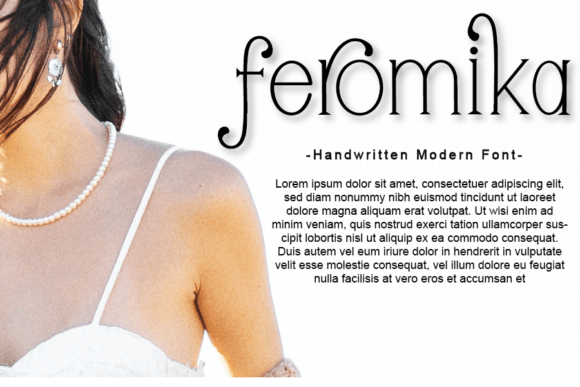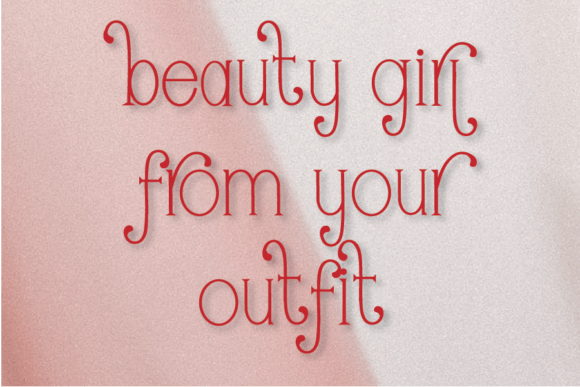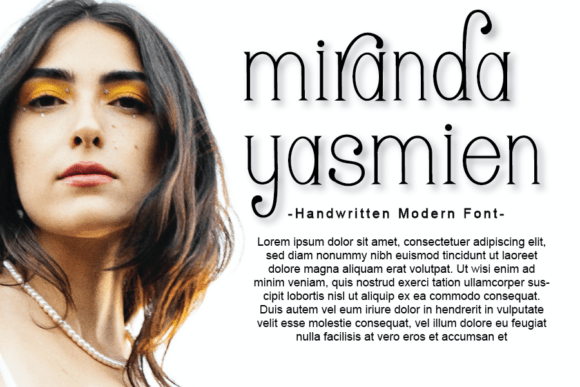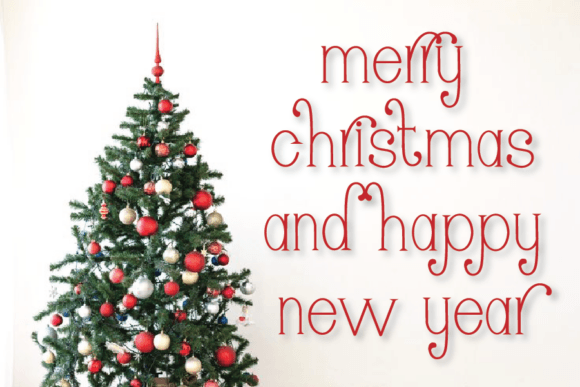
Introduction to Miracle Shaddnes Font
Have you ever sat in front of your computer, staring at a blank canvas, and suddenly felt the urge to create something beautiful? That’s exactly what happened to many designers when they stumbled upon the Miracle Shaddnes Font. Its elegant charm and chic handwritten-serif flair have captivated the hearts of many, making it a go-to design resource for any creative project.
As a designer, you understand the value of having the right tools at your fingertips. The Miracle Shaddnes Font is more than just a font – it’s a high-quality design element that can elevate your work and make it stand out. With its free download option and transparent background, you can easily integrate it into your designs and take them to the next level.
Key Features of Miracle Shaddnes Font
- Unique characteristics include bold and elegant lines, making it perfect for headings and titles.
Honest Review: Miracle Shaddnes Font
As a designer, I’m always on the lookout for high-quality design resources to elevate my creative projects. The Miracle Shaddnes Font caught my eye with its unique and stylish look.
What works well: ✨ The font has a clean and modern aesthetic that would be perfect for a variety of design applications, from logos to digital products. The font also comes with a transparent background, making it easy to work with.
- Unique and stylish design
- High-quality font with a transparent background
However, I did notice a few limitations: ⚠️ The font only comes in a limited range of weights and styles, which may limit its versatility. Additionally, the font may not be suitable for body text due to its decorative nature.
Overall, I’m impressed with the Miracle Shaddnes Font and would recommend it for designers looking for a high-quality, unique font to add a touch of personality to their creative projects.
The Miracle Shaddnes Font is a high-quality design resource ideal for creative projects. Its unique style and transparent background make it perfect for adding a touch of elegance to your designs.
Common Use Cases for Miracle Shaddnes Font
The Miracle Shaddnes Font is ideal for a variety of creative projects, including:
- Wedding invitation design